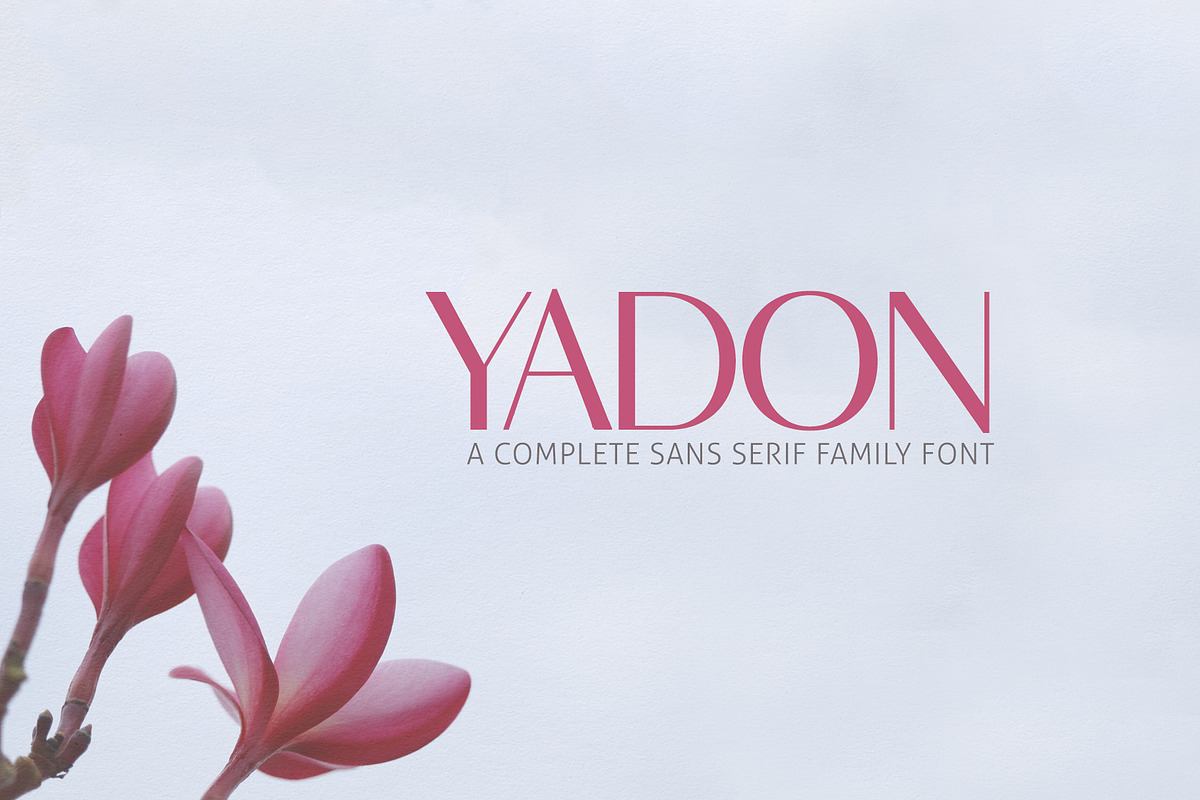
Yadon Sans Serif Fonts Family Pack Free Download is a clean, modern, and versatile typeface family that includes multiple weights and styles, making it perfect for a variety of design projects. With its geometric design and balanced letterforms, Yadon offers clarity, professionalism, and style for use in branding, editorial design, web content, and more.
This font family is ideal for both headlines and body text, providing excellent legibility across different media. Whether you're designing a corporate website, a sleek logo, or clean marketing materials, Yadon brings a refined and polished look to your typography.